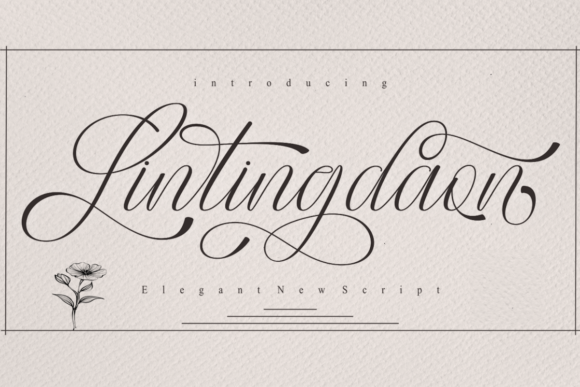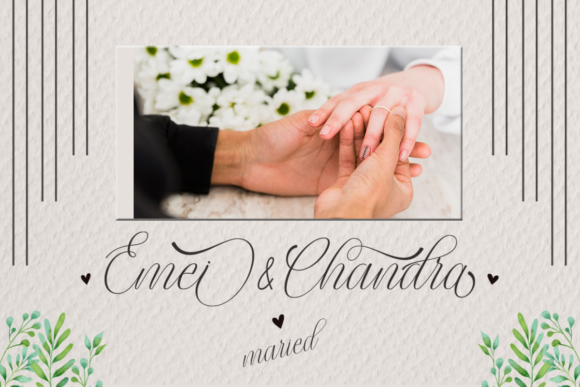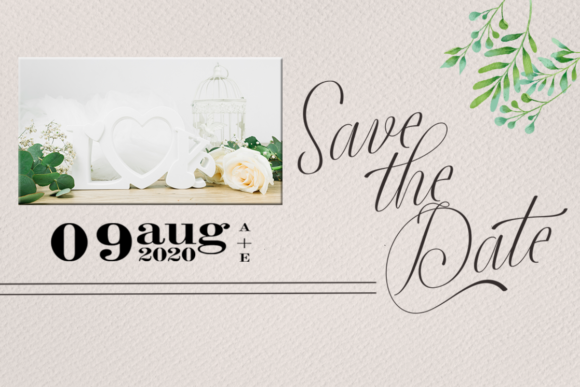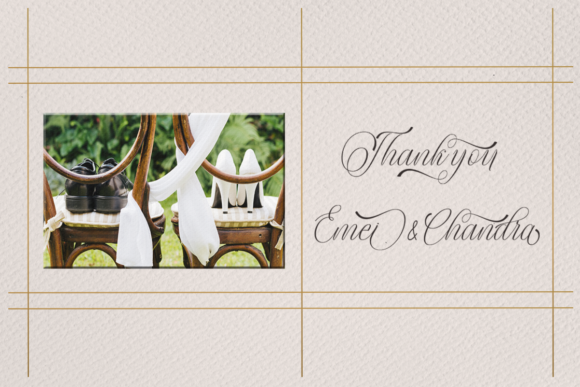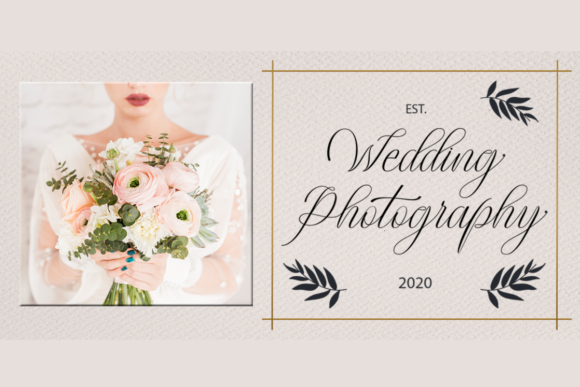
Lintingdaon Script Font
About Lintingdaon Script Font
Lintingdaon is an extraordinary script font that captures the essence of romance and elegance. Its beautiful swashes and soft rhythm make it a perfect choice for a wide range of projects, especially those that require a touch of sophistication and uniqueness.
Romantic and Elegant: Lintingdaon’s delicate and flowing design exudes romance and elegance, making it an excellent option for wedding invitations, love letters, and other sentimental projects.
Versatile Usage: The font’s versatility allows it to be used for a variety of design purposes, including wedding invitations, greeting cards, packaging, logos, branding, and more.
Wedding Invitations: Lintingdaon is an ideal font for creating memorable and captivating wedding invitations that set the tone for a romantic celebration of love.
Greeting Cards: Use Lintingdaon to add a heartfelt and personalized touch to greeting cards for special occasions, such as anniversaries, birthdays, or holidays.
Packaging: Whether it’s for a luxury product or a special gift, Lintingdaon can elevate packaging designs with its elegant and sophisticated appearance.
Logos and Branding: The font’s unique swashes and soft rhythm make it a great choice for logos and branding elements that want to convey a sense of refinement and allure.
Soft Rhythm: Lintingdaon’s soft and graceful rhythm gives it a natural and inviting feel, perfect for designs that aim to create an emotional connection with the audience.
Captivating Swashes: The font’s beautiful swashes add a touch of flair and individuality to each character, allowing designers to create eye-catching and distinctive typography.
Unique and Timeless: Lintingdaon’s exceptional design makes it a timeless font that can stand the test of time and remain relevant for various design projects.
With its exceptional design, beautiful swashes, and soft rhythm, Lintingdaon can turn any ordinary design into a captivating and elegant masterpiece. Whether used for wedding invitations, cards, packaging, logos, or other creative endeavors, this font has the ability to add a touch of romance and sophistication to any project.